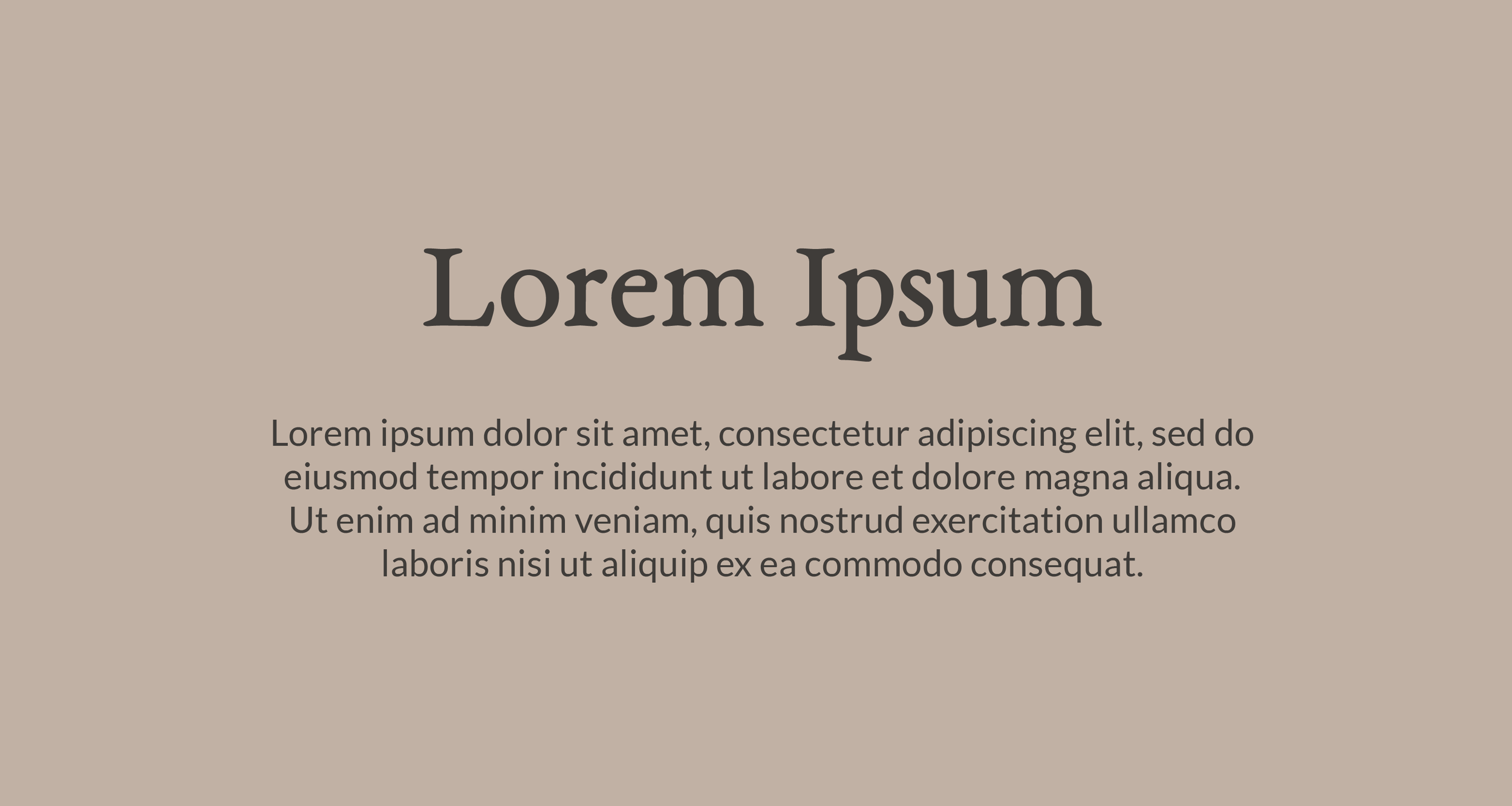
What Fonts Go Well With Garamond . Montserrat bold and roboto slab. What font pairs well with garamond for a professional look? The common garamond variations used today include garamond simoncini, garamond monotype, garamond berthold, garamond itc, and garamond stempel. Discover over 15 captivating fonts similar to garamond and unlock the art of perfect font pairings to elevate your design projects. sites using the typeface garamond with personal recommendations for similar web fonts, suggested font pairings and the closest free alternative. Sans serif fonts offer optimal readability for both large and fine print, with clean and modern. These are a good match for because they provide nice. In this article, we explore 18 fonts similar to garamond that promise to bring an elegant touch to your designs. From crisp and clear to warm and inviting, these typefaces offer.
In this article, we explore 18 fonts similar to garamond that promise to bring an elegant touch to your designs. These are a good match for because they provide nice. Sans serif fonts offer optimal readability for both large and fine print, with clean and modern. sites using the typeface garamond with personal recommendations for similar web fonts, suggested font pairings and the closest free alternative. Montserrat bold and roboto slab. The common garamond variations used today include garamond simoncini, garamond monotype, garamond berthold, garamond itc, and garamond stempel. Discover over 15 captivating fonts similar to garamond and unlock the art of perfect font pairings to elevate your design projects. What font pairs well with garamond for a professional look? From crisp and clear to warm and inviting, these typefaces offer.
What Fonts Go Well With Garamond These are a good match for because they provide nice. Discover over 15 captivating fonts similar to garamond and unlock the art of perfect font pairings to elevate your design projects. From crisp and clear to warm and inviting, these typefaces offer. sites using the typeface garamond with personal recommendations for similar web fonts, suggested font pairings and the closest free alternative. In this article, we explore 18 fonts similar to garamond that promise to bring an elegant touch to your designs. Sans serif fonts offer optimal readability for both large and fine print, with clean and modern. Montserrat bold and roboto slab. The common garamond variations used today include garamond simoncini, garamond monotype, garamond berthold, garamond itc, and garamond stempel. What font pairs well with garamond for a professional look?
Claude Garamond Fonte tipográfica Adobe Garamond Pro Lettering What Fonts Go Well With Garamond These are a good match for because they provide nice. From crisp and clear to warm and inviting, these typefaces offer. Montserrat bold and roboto slab. Discover over 15 captivating fonts similar to garamond and unlock the art of perfect font pairings to elevate your design projects. Sans serif fonts offer optimal readability for both large and fine print, with. What Fonts Go Well With Garamond.
Garamond Font download free What Fonts Go Well With Garamond sites using the typeface garamond with personal recommendations for similar web fonts, suggested font pairings and the closest free alternative. Discover over 15 captivating fonts similar to garamond and unlock the art of perfect font pairings to elevate your design projects. From crisp and clear to warm and inviting, these typefaces offer. Sans serif fonts offer optimal readability for both. What Fonts Go Well With Garamond.
Garamond Font Download Free Fonts Lab What Fonts Go Well With Garamond sites using the typeface garamond with personal recommendations for similar web fonts, suggested font pairings and the closest free alternative. What font pairs well with garamond for a professional look? From crisp and clear to warm and inviting, these typefaces offer. The common garamond variations used today include garamond simoncini, garamond monotype, garamond berthold, garamond itc, and garamond stempel. Discover. What Fonts Go Well With Garamond.
Apple Garamond font by Unknown FontRiver What Fonts Go Well With Garamond Sans serif fonts offer optimal readability for both large and fine print, with clean and modern. These are a good match for because they provide nice. Montserrat bold and roboto slab. The common garamond variations used today include garamond simoncini, garamond monotype, garamond berthold, garamond itc, and garamond stempel. From crisp and clear to warm and inviting, these typefaces offer.. What Fonts Go Well With Garamond.
10 Free Fonts That Will Transform Your site — Kate Scott What Fonts Go Well With Garamond What font pairs well with garamond for a professional look? Sans serif fonts offer optimal readability for both large and fine print, with clean and modern. In this article, we explore 18 fonts similar to garamond that promise to bring an elegant touch to your designs. sites using the typeface garamond with personal recommendations for similar web fonts, suggested font. What Fonts Go Well With Garamond.
EB Garamond font What Fonts Go Well With Garamond In this article, we explore 18 fonts similar to garamond that promise to bring an elegant touch to your designs. sites using the typeface garamond with personal recommendations for similar web fonts, suggested font pairings and the closest free alternative. Discover over 15 captivating fonts similar to garamond and unlock the art of perfect font pairings to elevate your design. What Fonts Go Well With Garamond.
Where do you want IT to go? Adobe Garamond Regular Font What Fonts Go Well With Garamond What font pairs well with garamond for a professional look? These are a good match for because they provide nice. Sans serif fonts offer optimal readability for both large and fine print, with clean and modern. In this article, we explore 18 fonts similar to garamond that promise to bring an elegant touch to your designs. The common garamond variations. What Fonts Go Well With Garamond.
24 of the Best Canva Font Pairings to Uplevel Your Brand — Firther What Fonts Go Well With Garamond Montserrat bold and roboto slab. These are a good match for because they provide nice. Discover over 15 captivating fonts similar to garamond and unlock the art of perfect font pairings to elevate your design projects. Sans serif fonts offer optimal readability for both large and fine print, with clean and modern. The common garamond variations used today include garamond. What Fonts Go Well With Garamond.